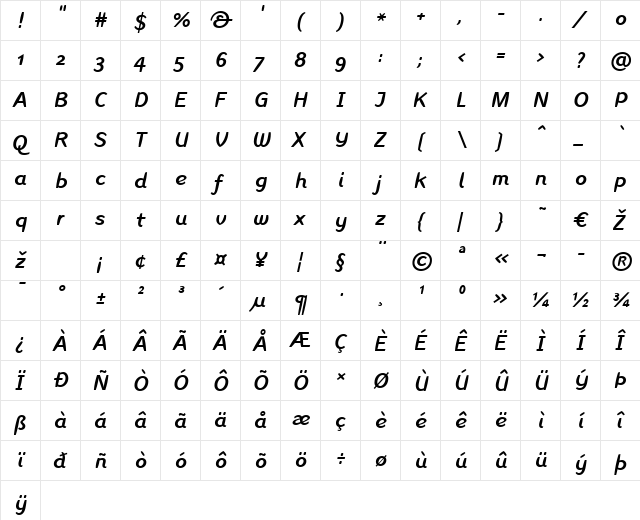
LTInagur MediumItalic Regular Font Preview
LTInagur MediumItalic Regular
LTInagur MediumItalic Regular Font Details
| Designer | Hans-Jurgen Ellenberger |
Design Context for LTInagur MediumItalic Typeface
LTInagur MediumItalic offers clean, dependable letterforms without strong stylistic allegiance, making it a practical choice for designers who need flexibility. Its italic angle brings a sense of urgency and motion to the letterforms.
Pro Tip: Try LTInagur MediumItalic for annotation and caption copy alongside an upright companion — the contrast in angle creates a dynamic but ordered typographic system.